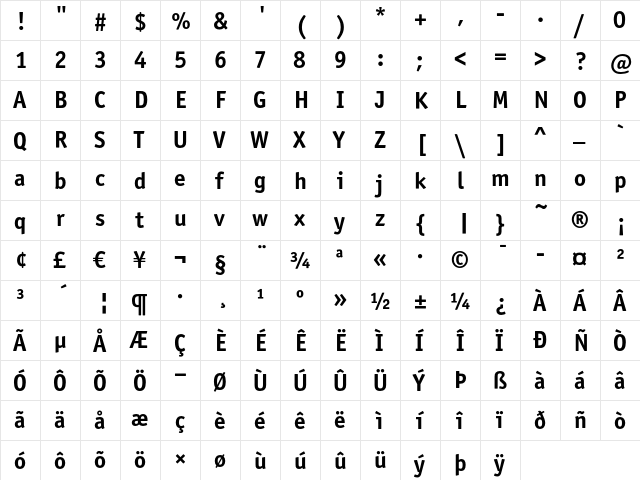
Officina Sans ITC Bold
Design Context for Officina Sans ITC Typeface
Officina Sans ITC takes a measured approach to typography — its balanced proportions and neutral character make it a reliable workhorse for both digital and print work. Its bold stroke weight gives it real presence on the page.